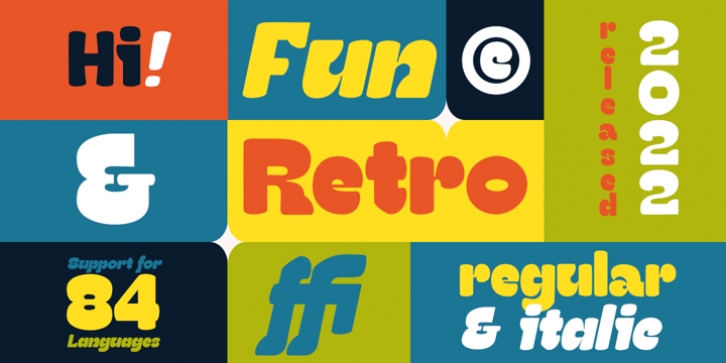
Gamby Font Family was designed by Donis Miftahudin, and and published by Nathatype. Gamby contains 2 styles and family package options.
Gamby is an attractive, vintage, playful display font for your customers. Its main character is the round, thick letters in thin outlines. Gamby provides two versions, regular and italic to use for bigger-sized texts to be legible.
Ligatures
Multilingual Supports
Numerals and Punctuations